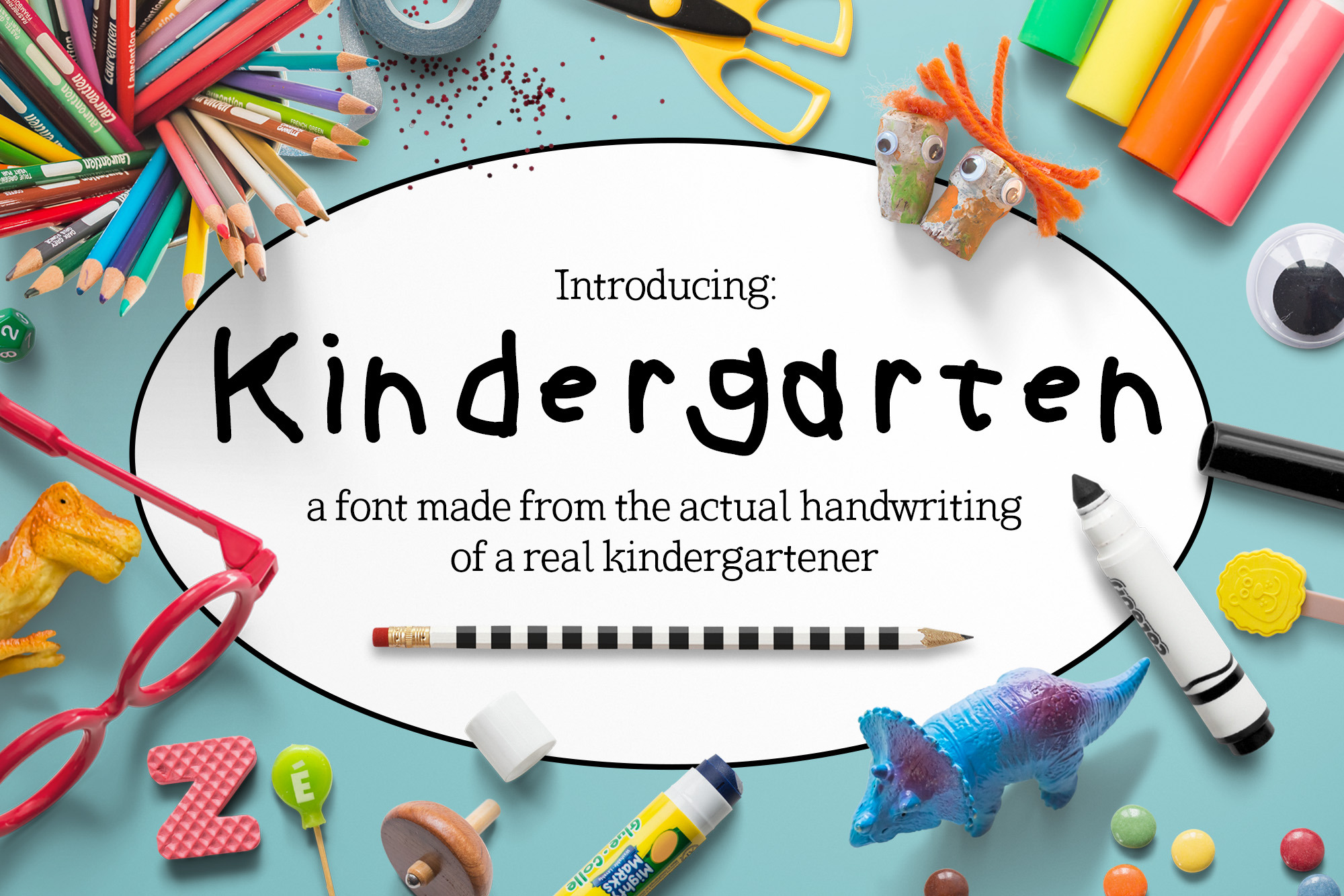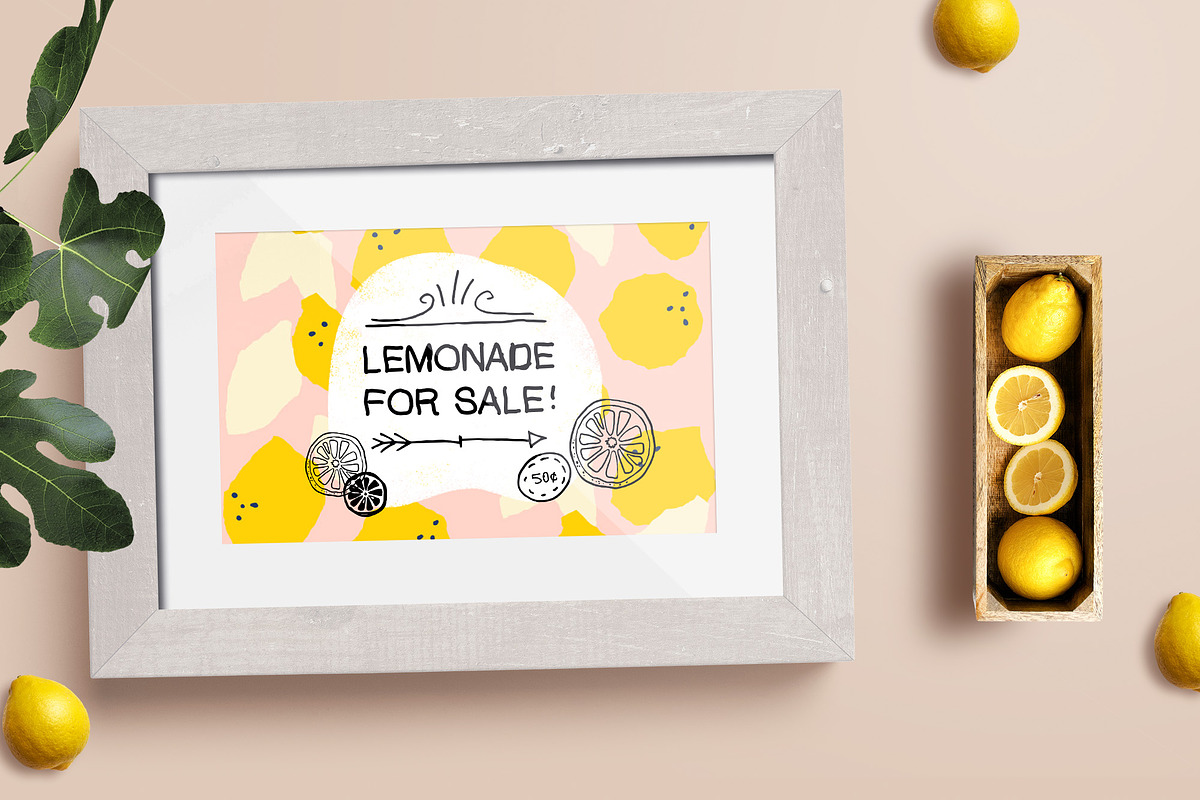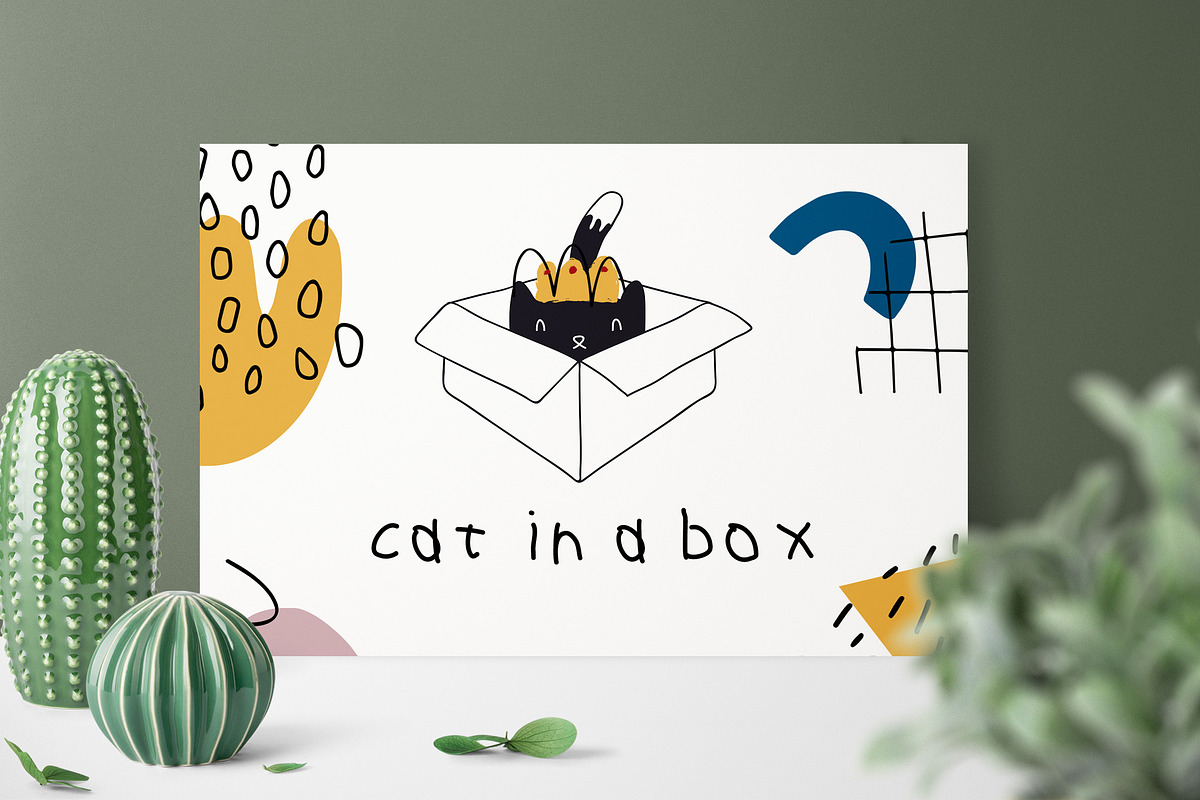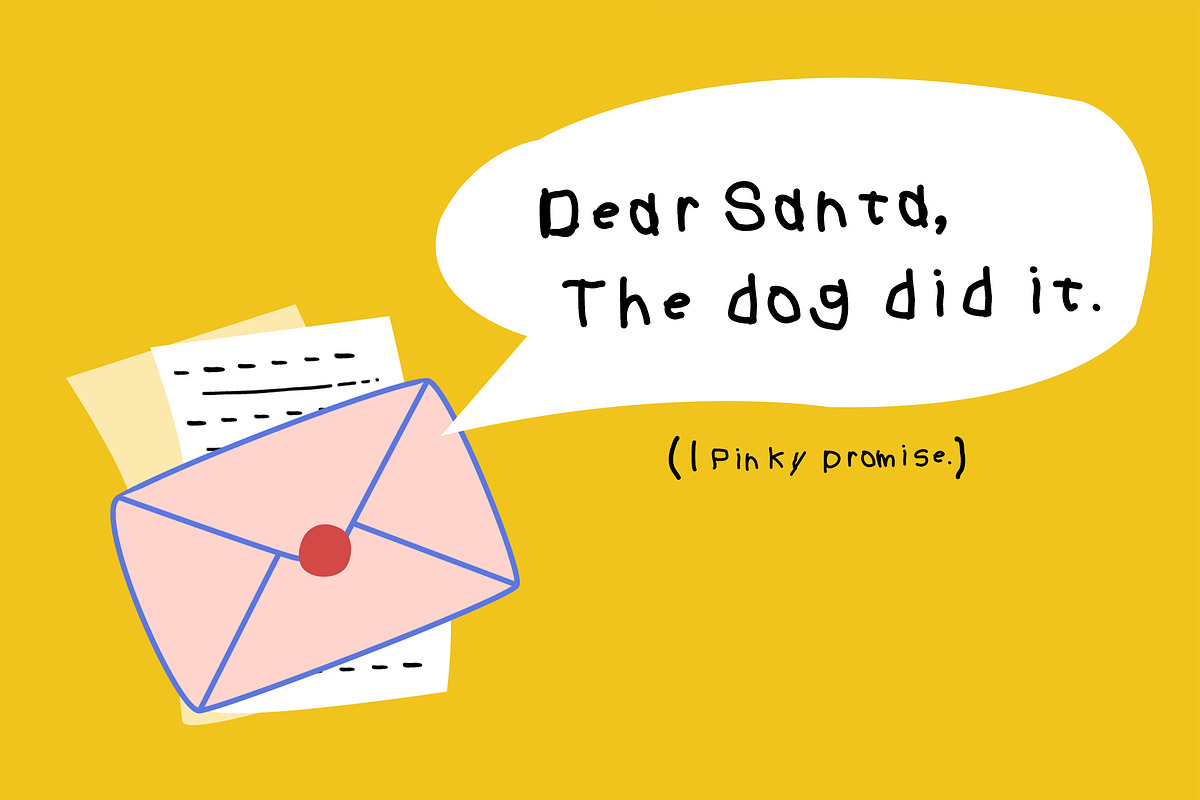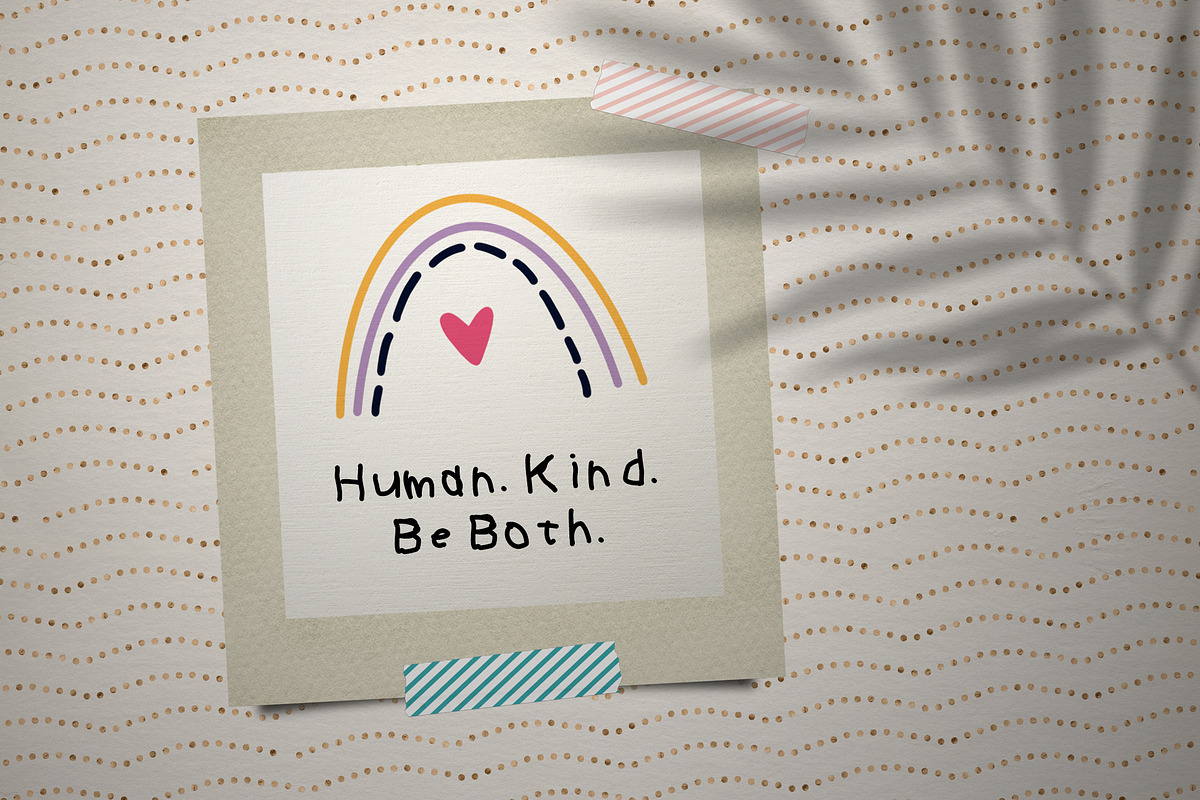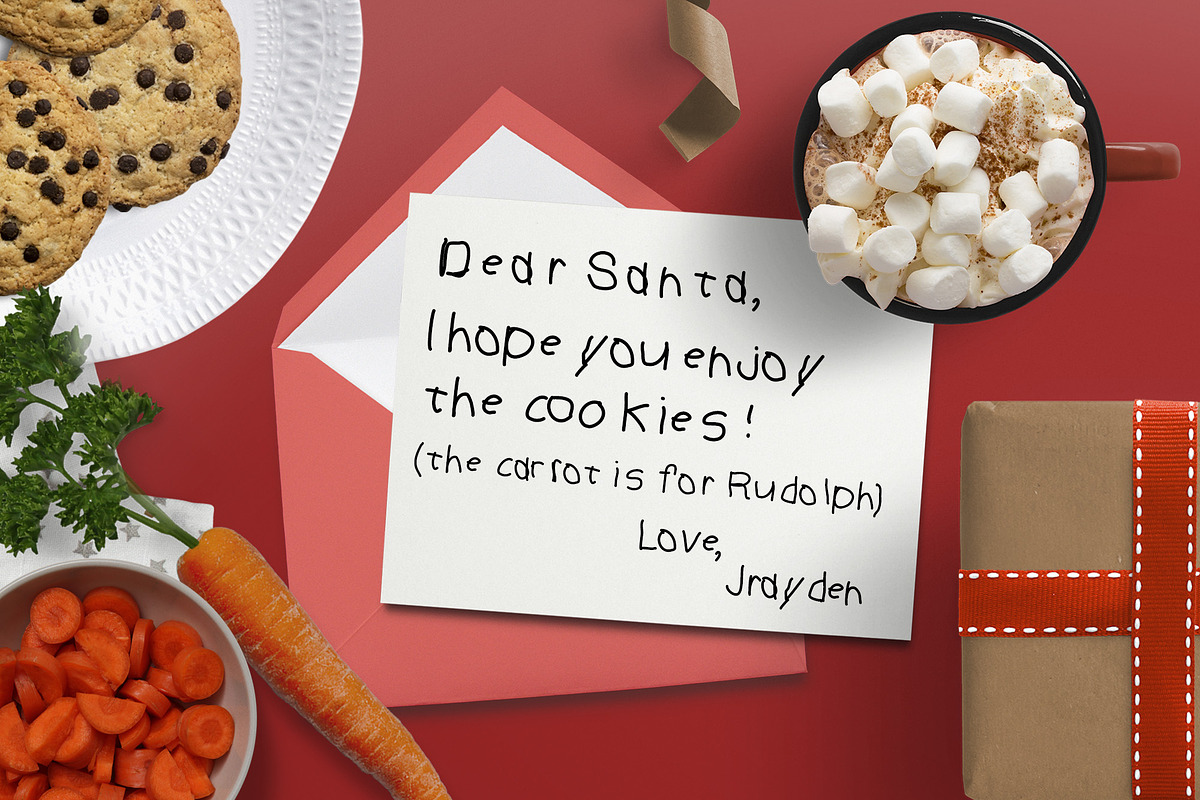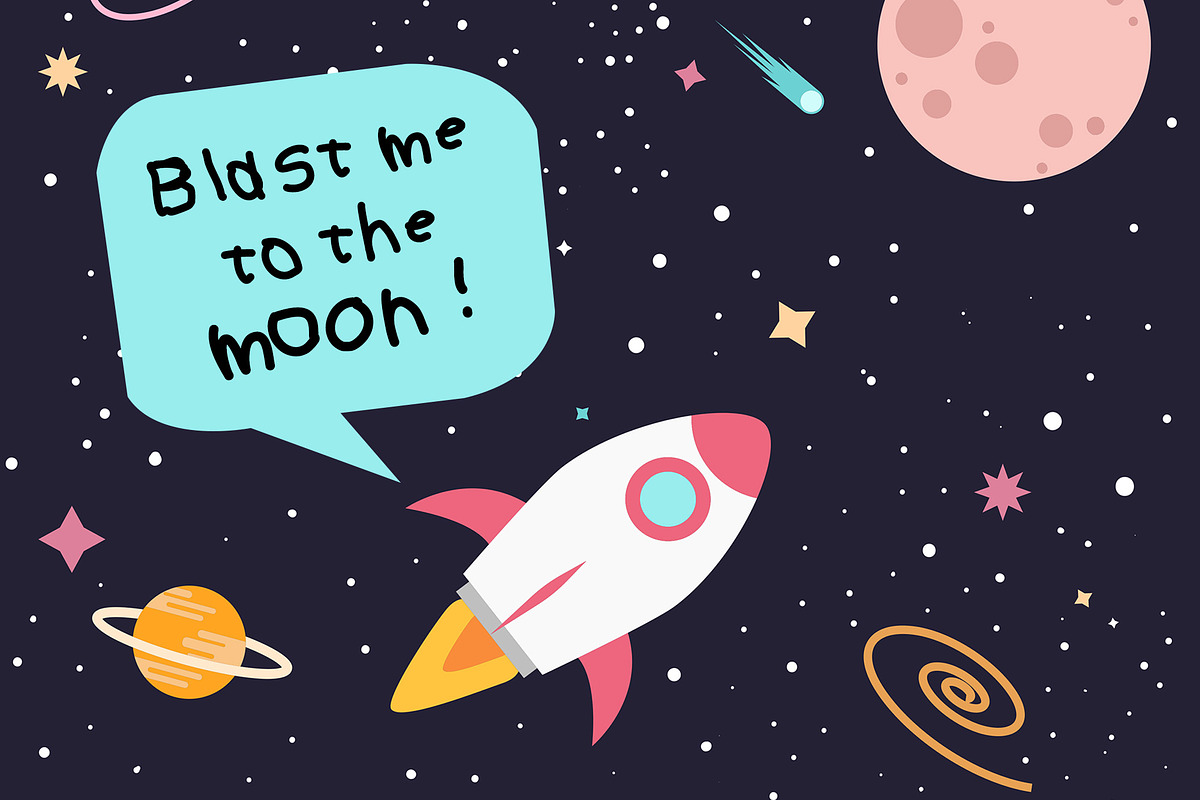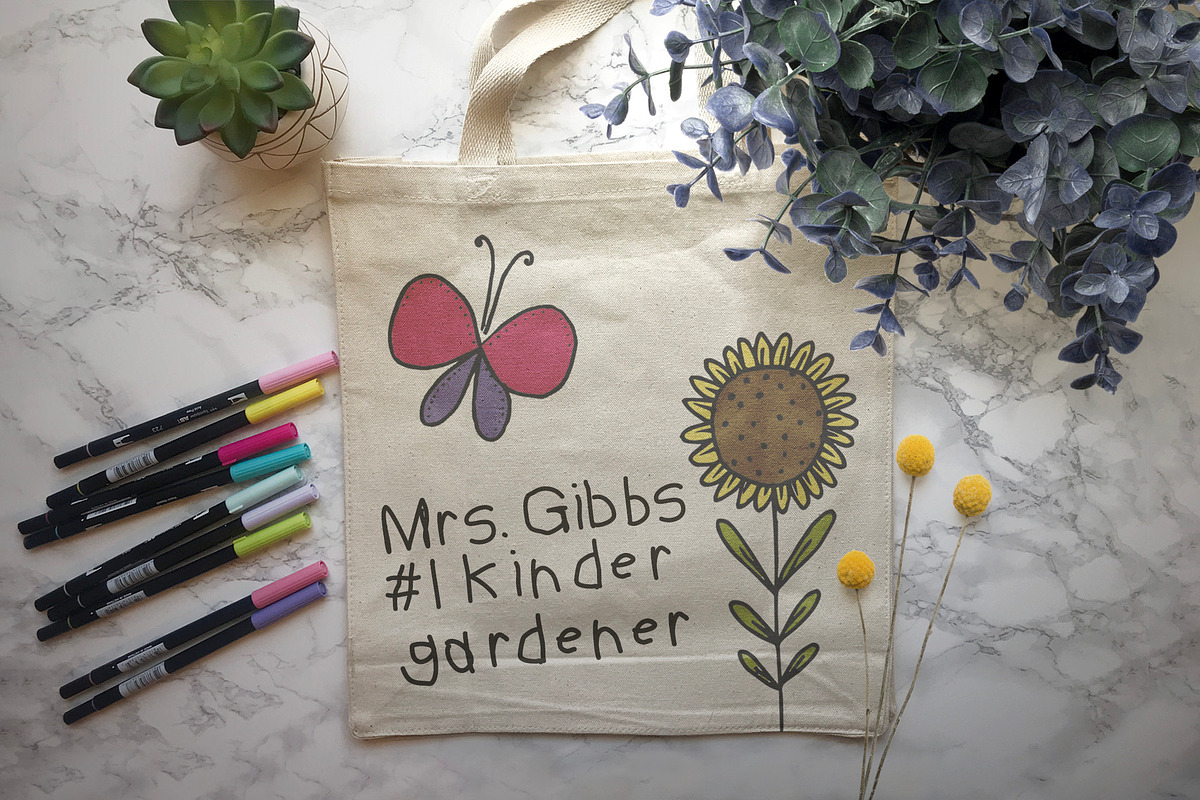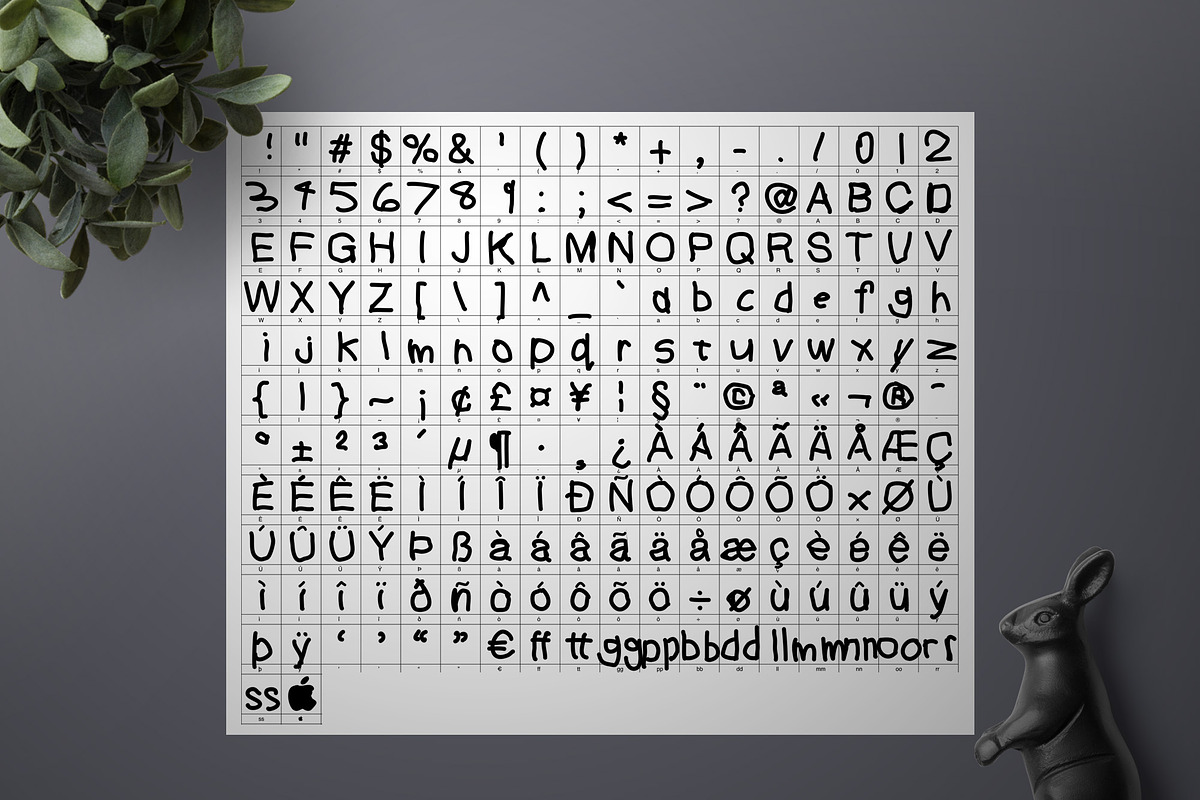
Kindergarten Handwriting Font
A font made from the actual handwriting of a real kindergartener!
My 5 year-old son created this font, and in a lesson on entrepreneurship, all proceeds will go to him. Or as he says, "My actual, for real bank account, not my piggy bank." 😂
The font comes in two weights, medium and light, and includes international support for western languages with accented characters and punctuation as well as select ligatures: bb, dd, ff, gg, ll, mm, nn, oo, pp, rr, ss, tt.
- two styles: one medium, one light
- international support for western languages with accented characters and punctuation
- select ligtures (bb, dd, ff, gg, ll, mm, nn, oo, pp, rr, ss, tt)